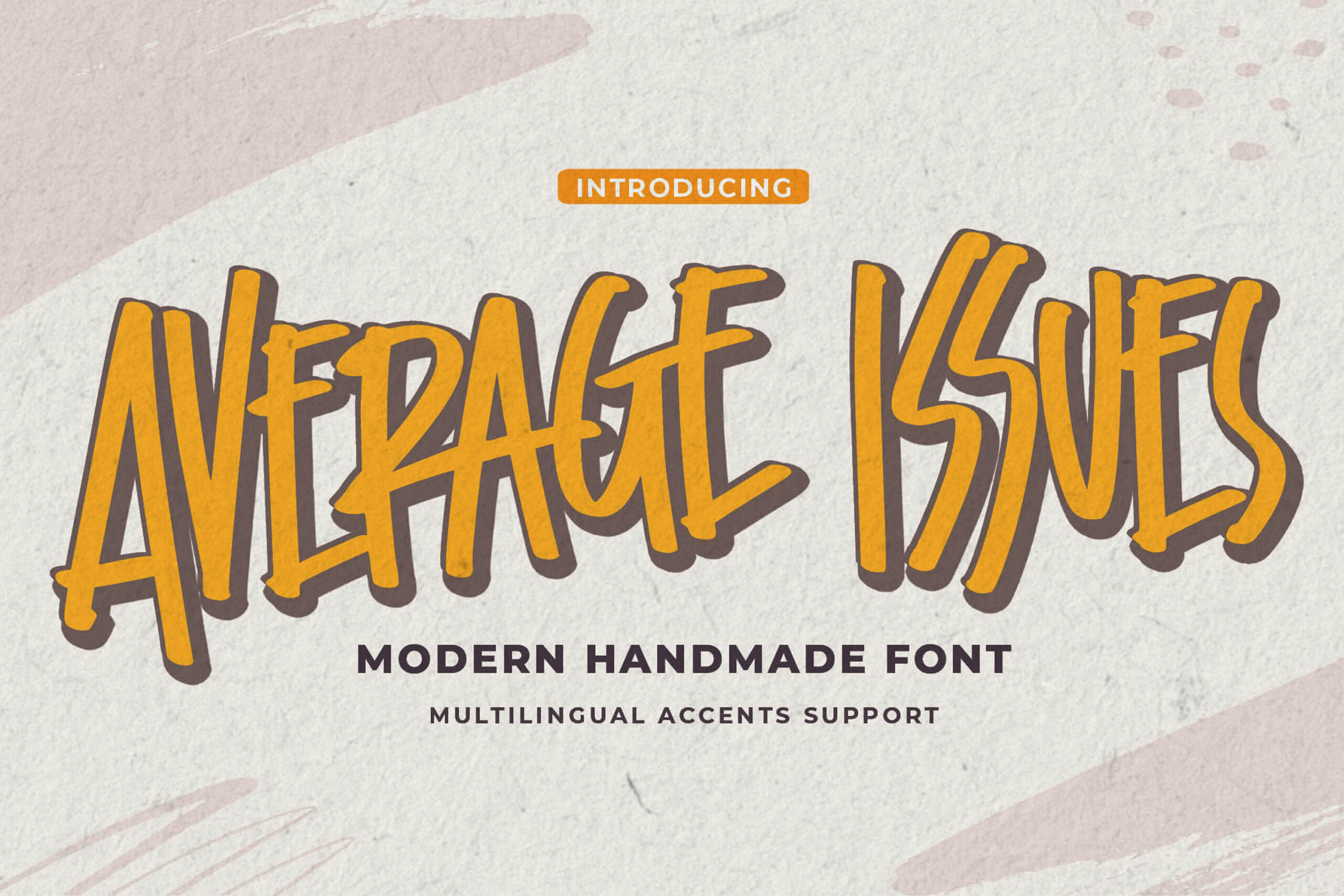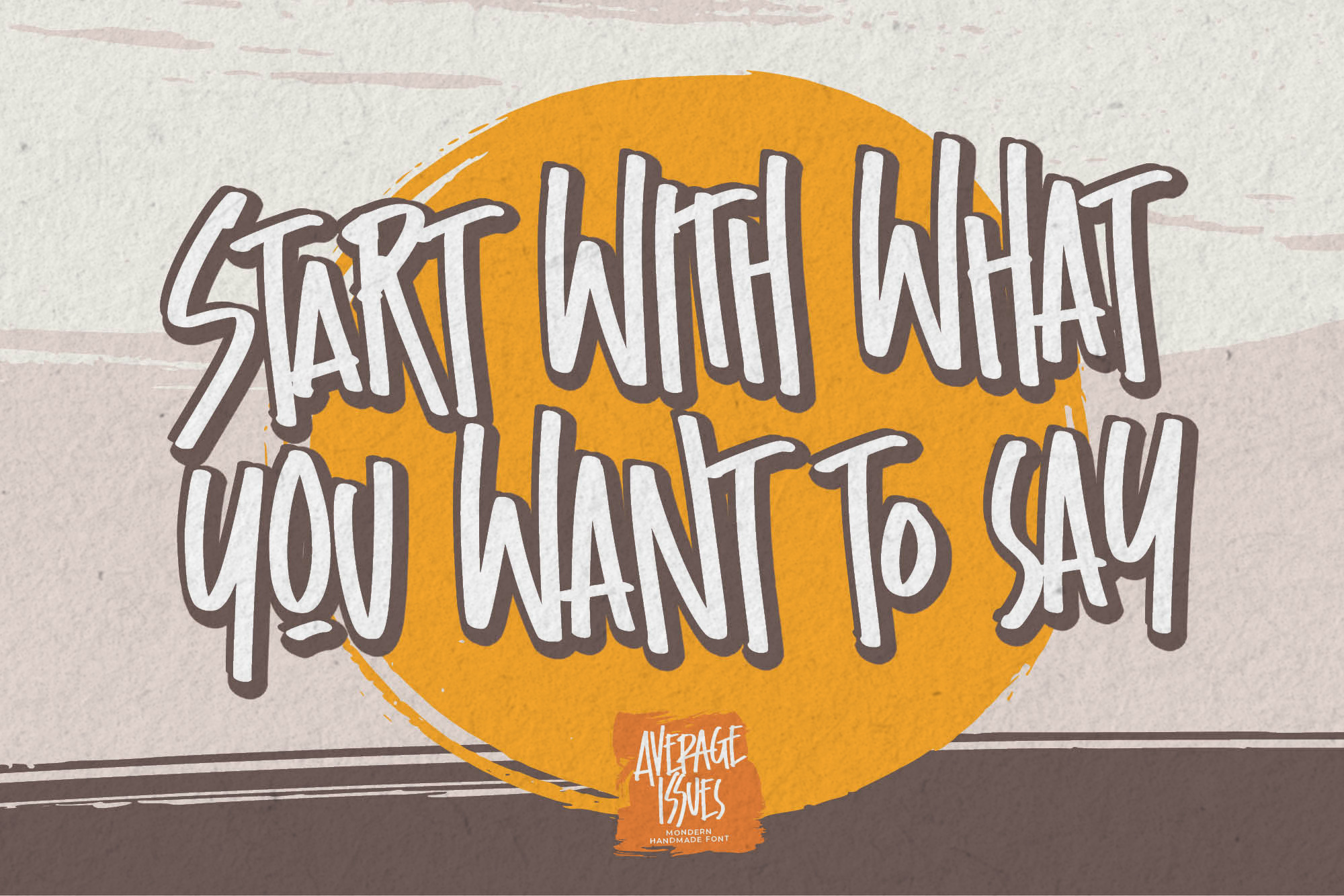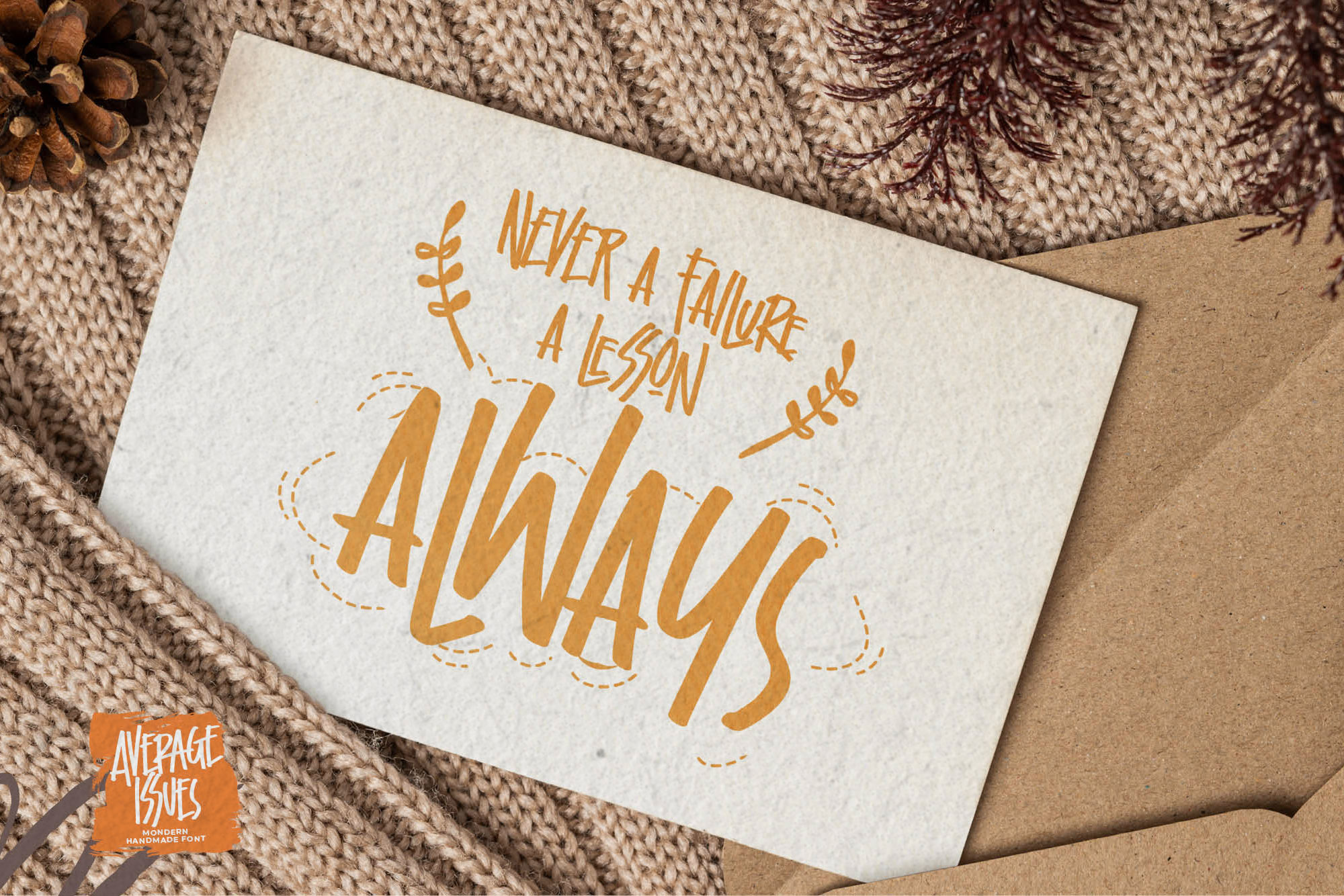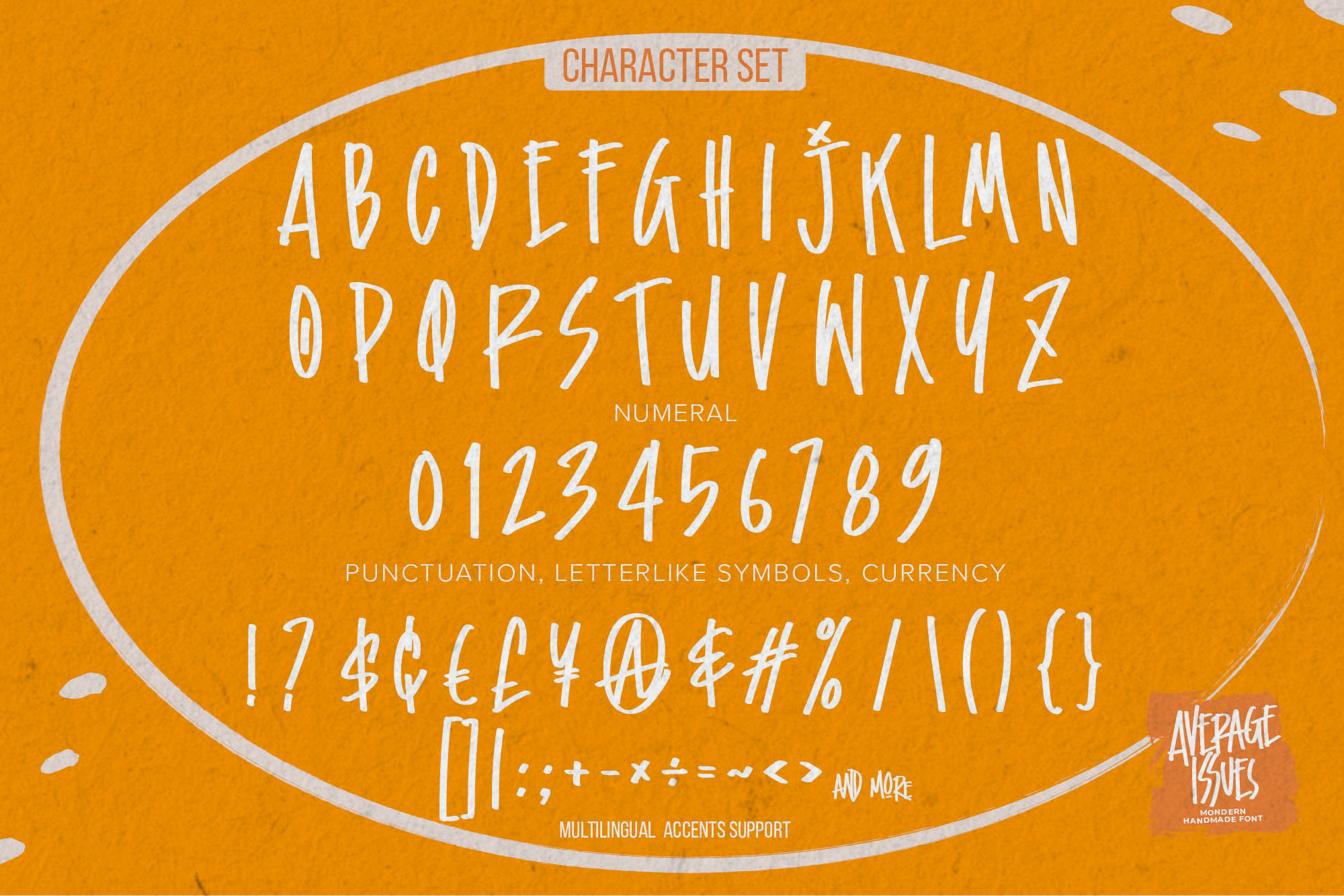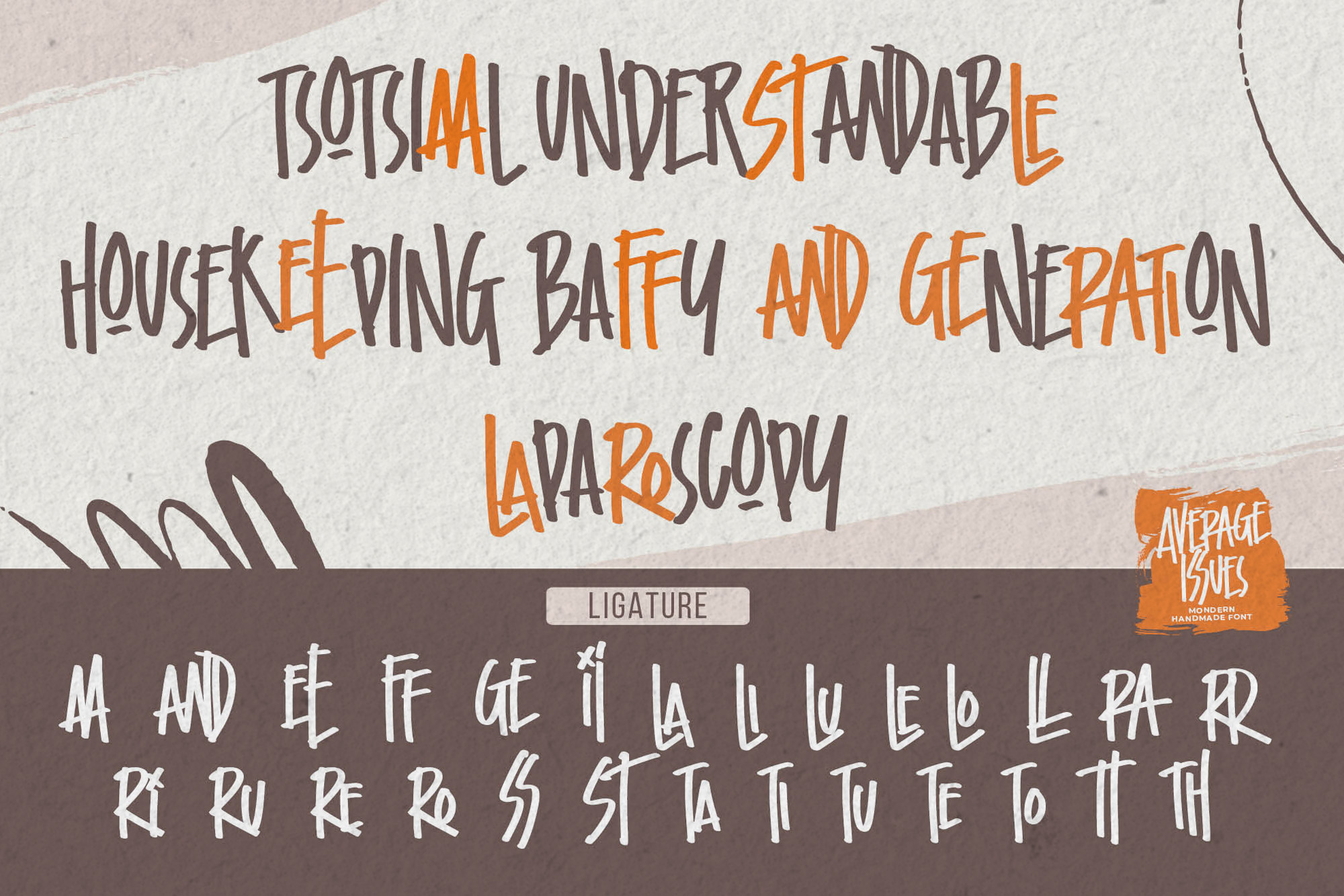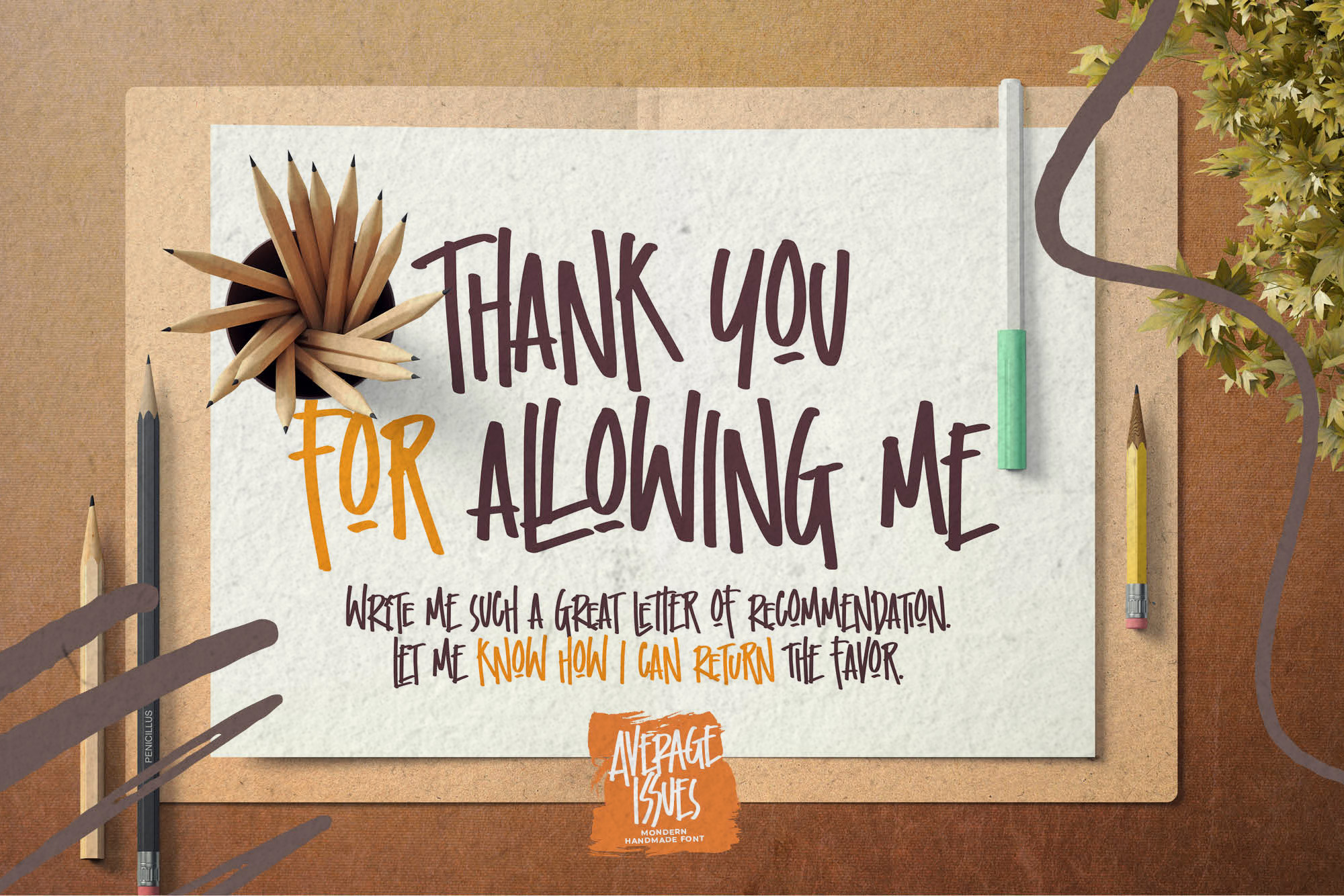
Average Issues – Modern Handmade Font that is written casually and quickly.
That is why Average Issues has a authentic, and unique characteristic more natural look. You can activate Ligatures and Alternates glyphs OpenType panel.
Average Issues Perfect for cartoon designs,This handmade font will make your design has a beautiful natural touch for each details. It is perfect for any design project as Invitation, book cover, craft or any design purposes.
photos, photography overlays, signs, window art, scrapbooking, tags and so much more!